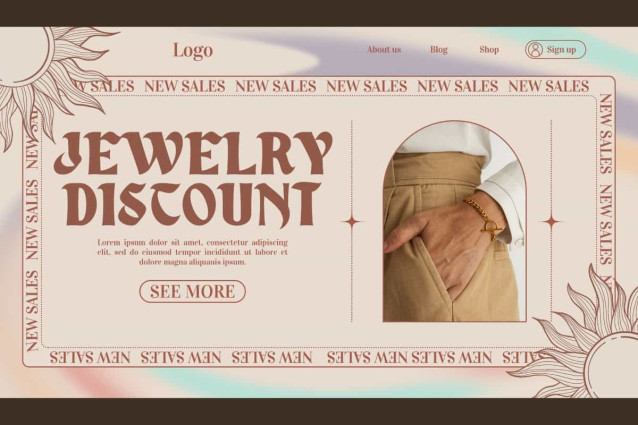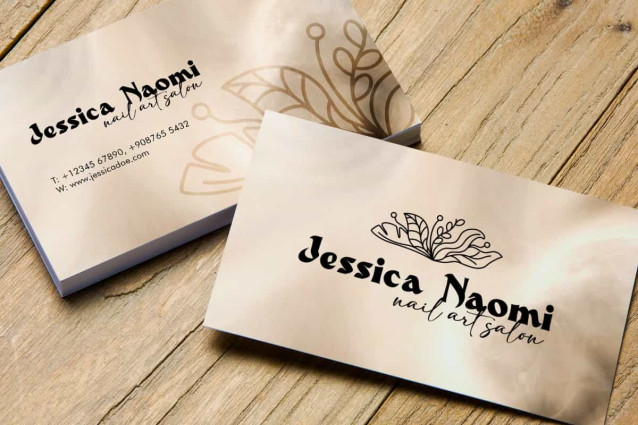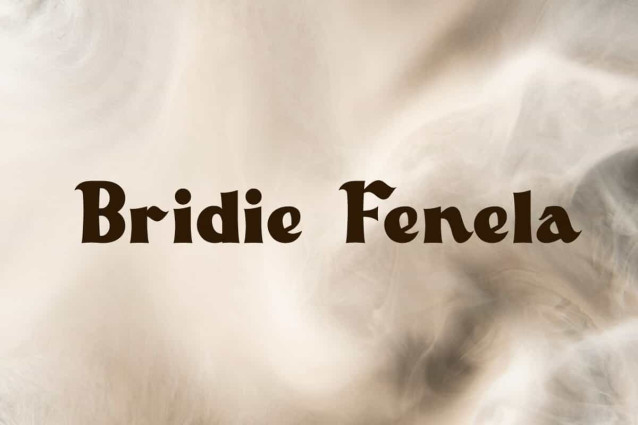
Bridie Fenela Font
Bridie Fenela Font is a display font that combines playful characters with a classic retro feel. This font will be perfect for various projects, such as brand image, brochure, label, magazine cover, mockup template, packaging, poster, quotes, signage, stationery, website, and more!
Bridie Fenela Font includes a complete set of Uppercase and Lowercase Basic Characters, Numbers, Punctuation, and Symbol. A font with bold and slightly curved letterforms, this font gives a friendly, expressive, and energetic impression. Making it a perfect choice for a variety of fields, such as advertising, beauty product, fashion, cafe, craft, event or wedding organizer, photography, real estate, restaurant, spa, travel, and so on.